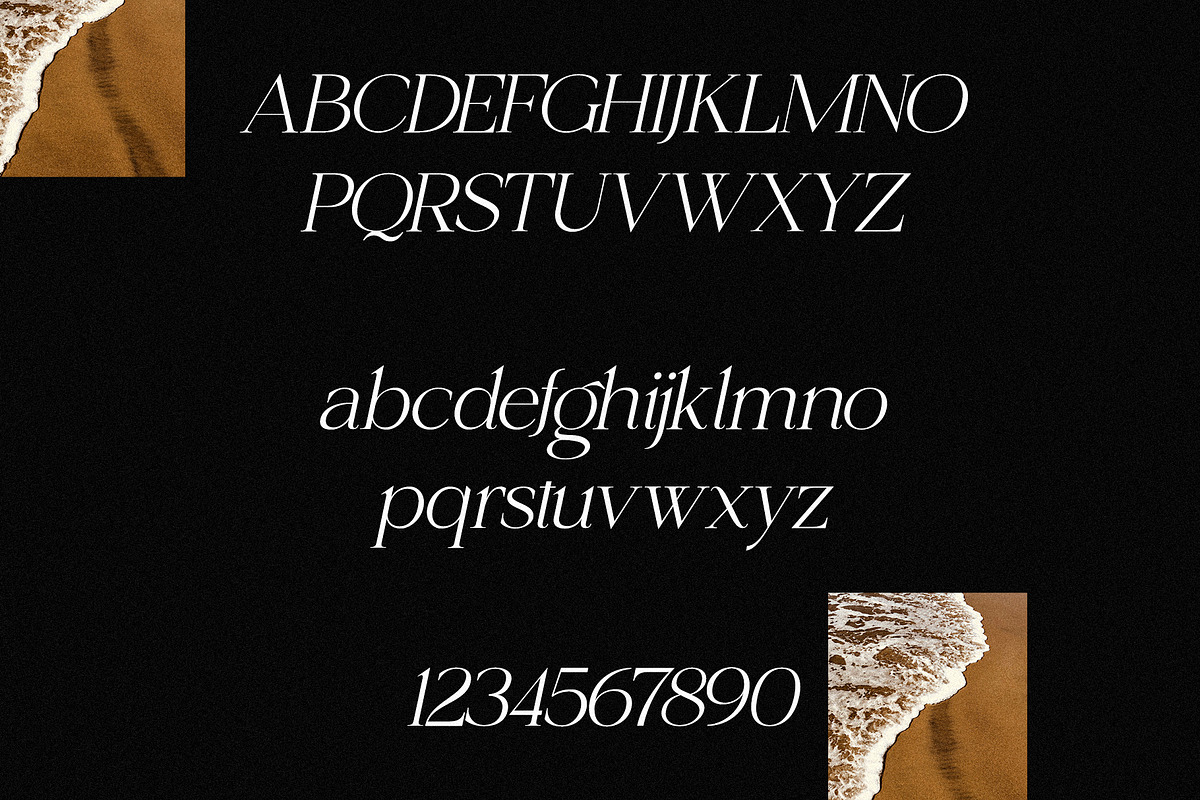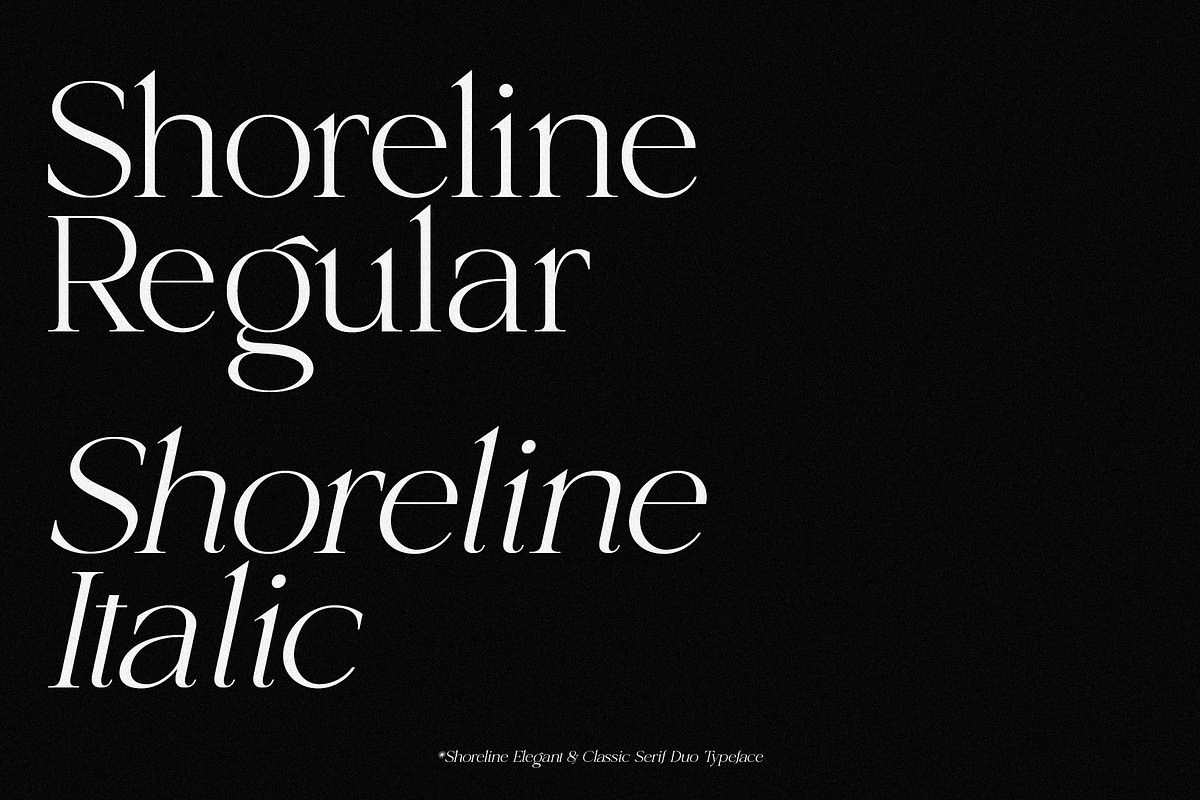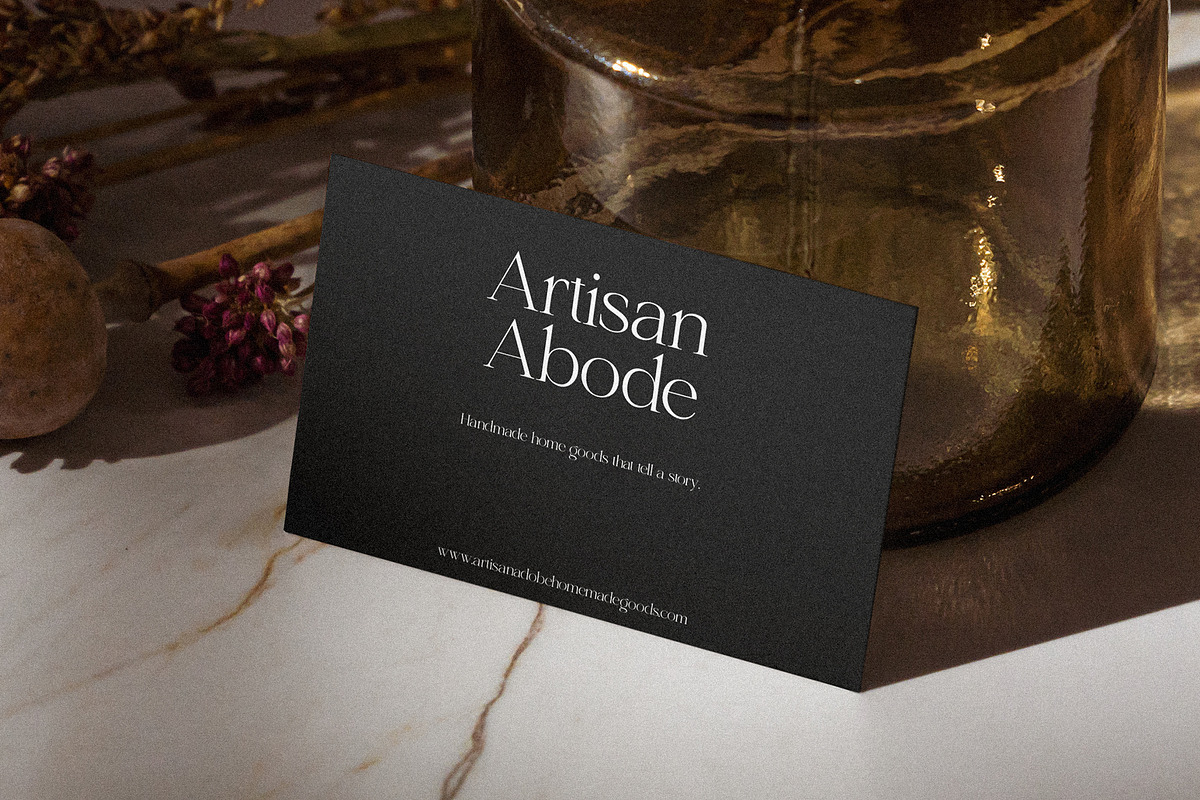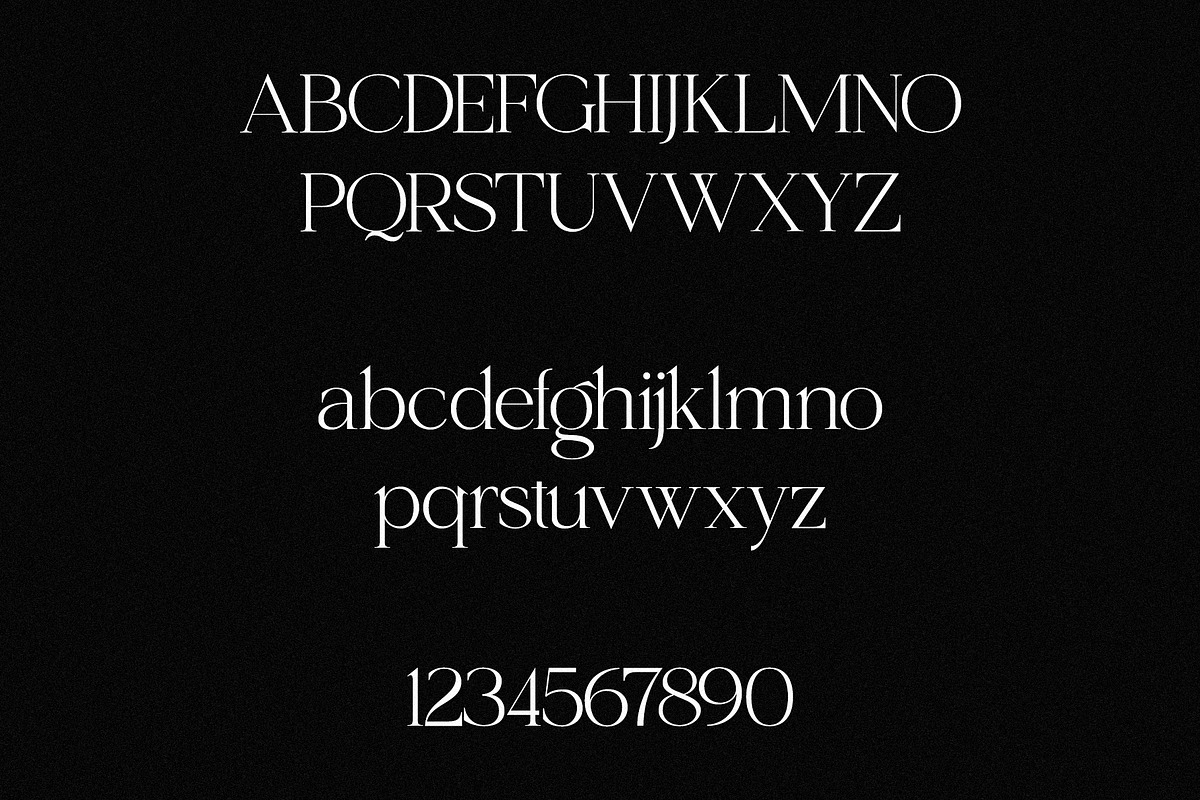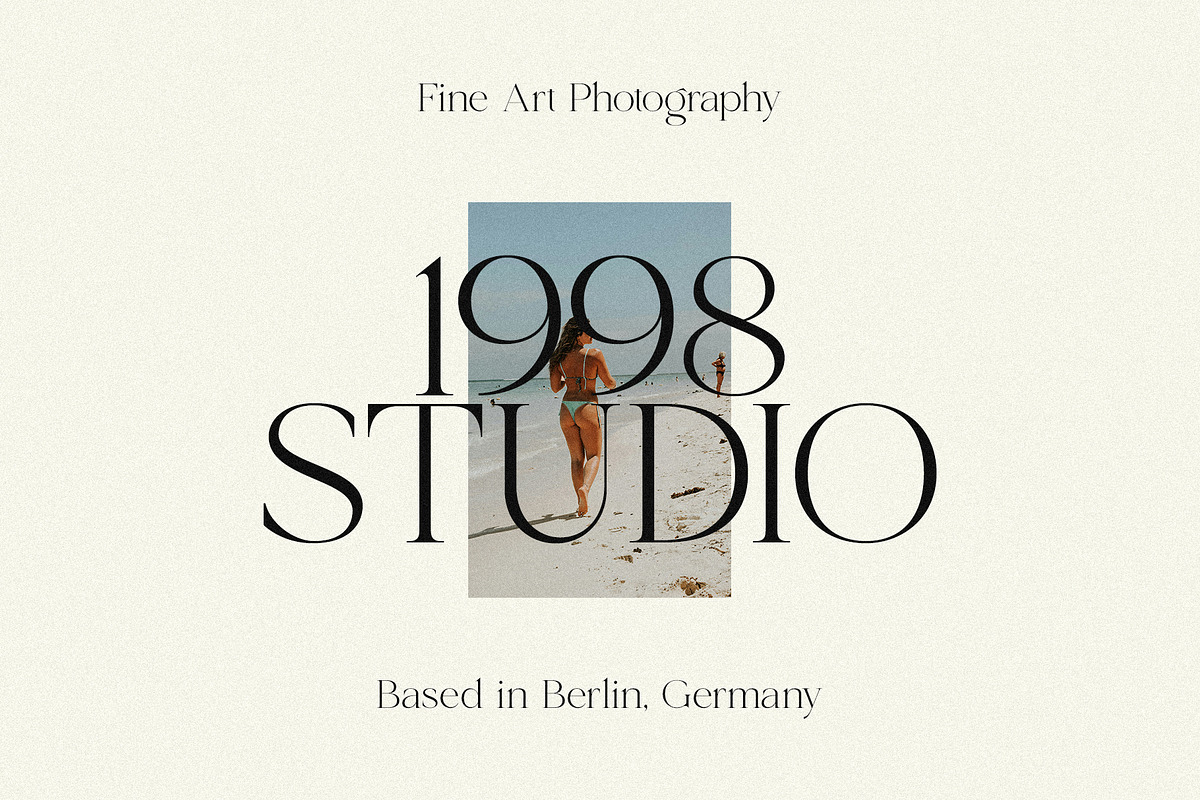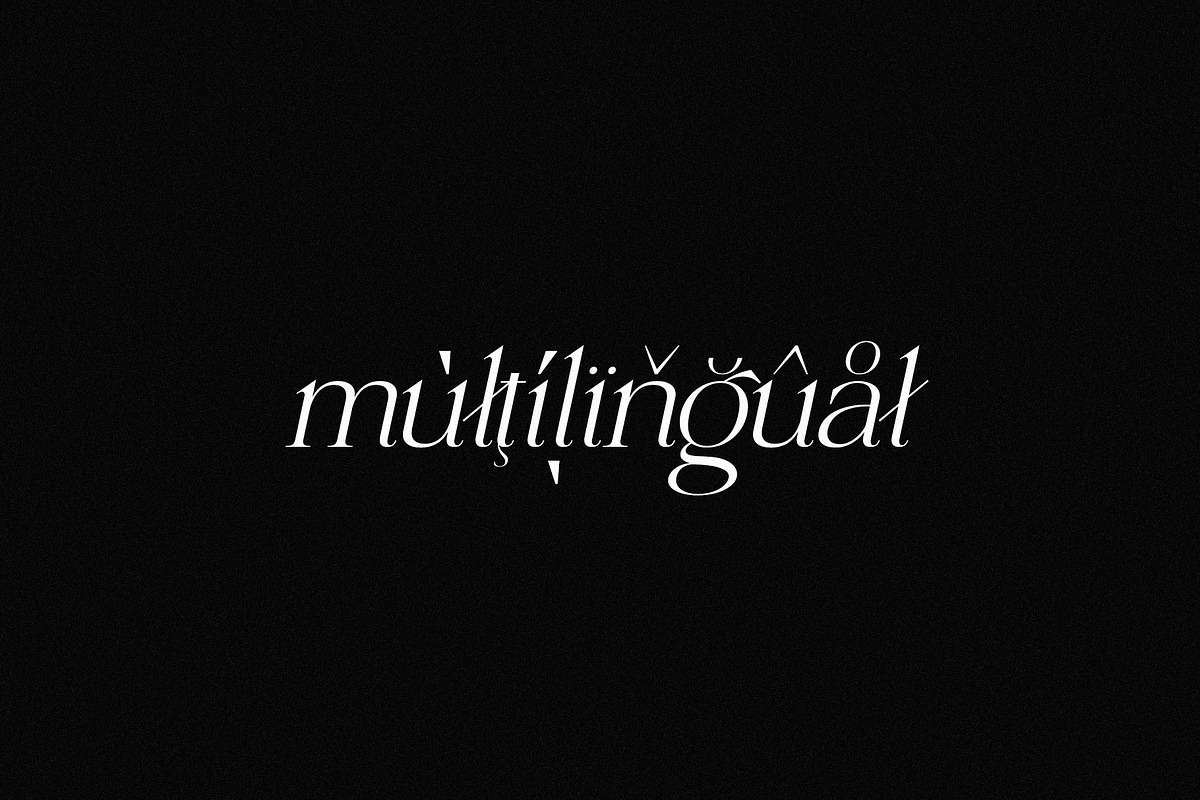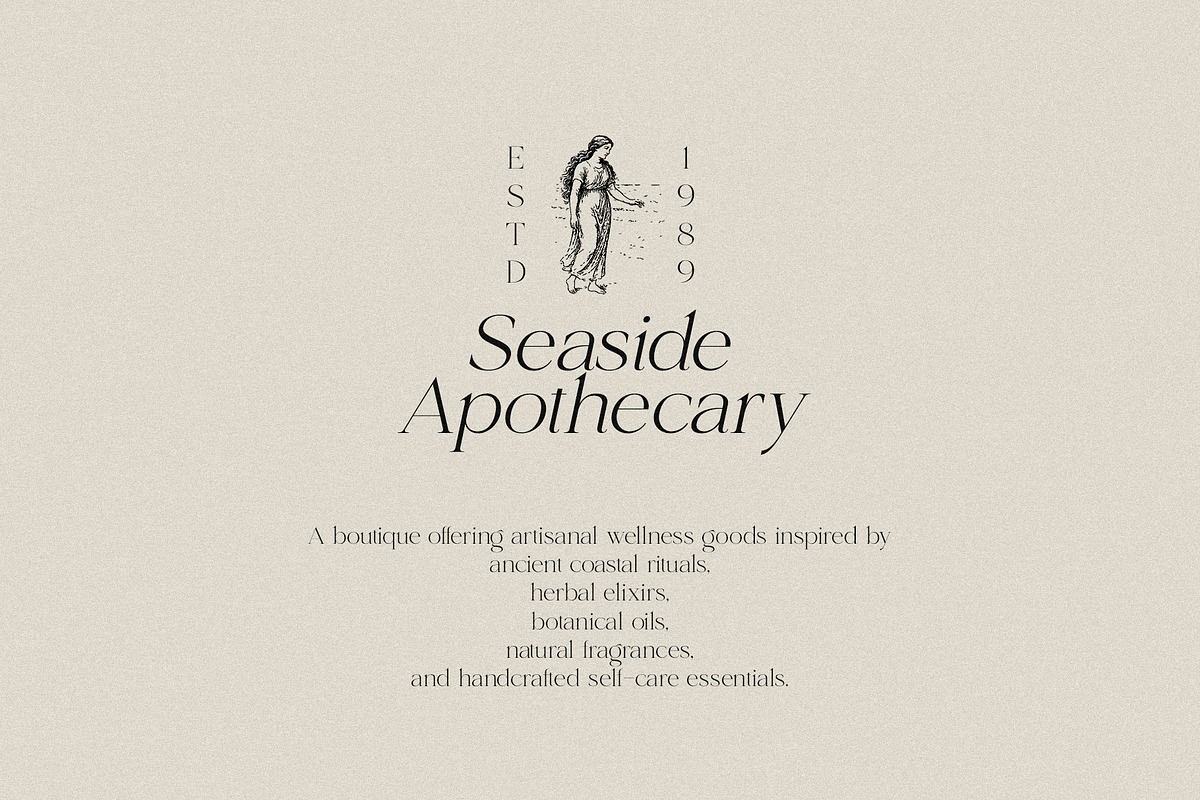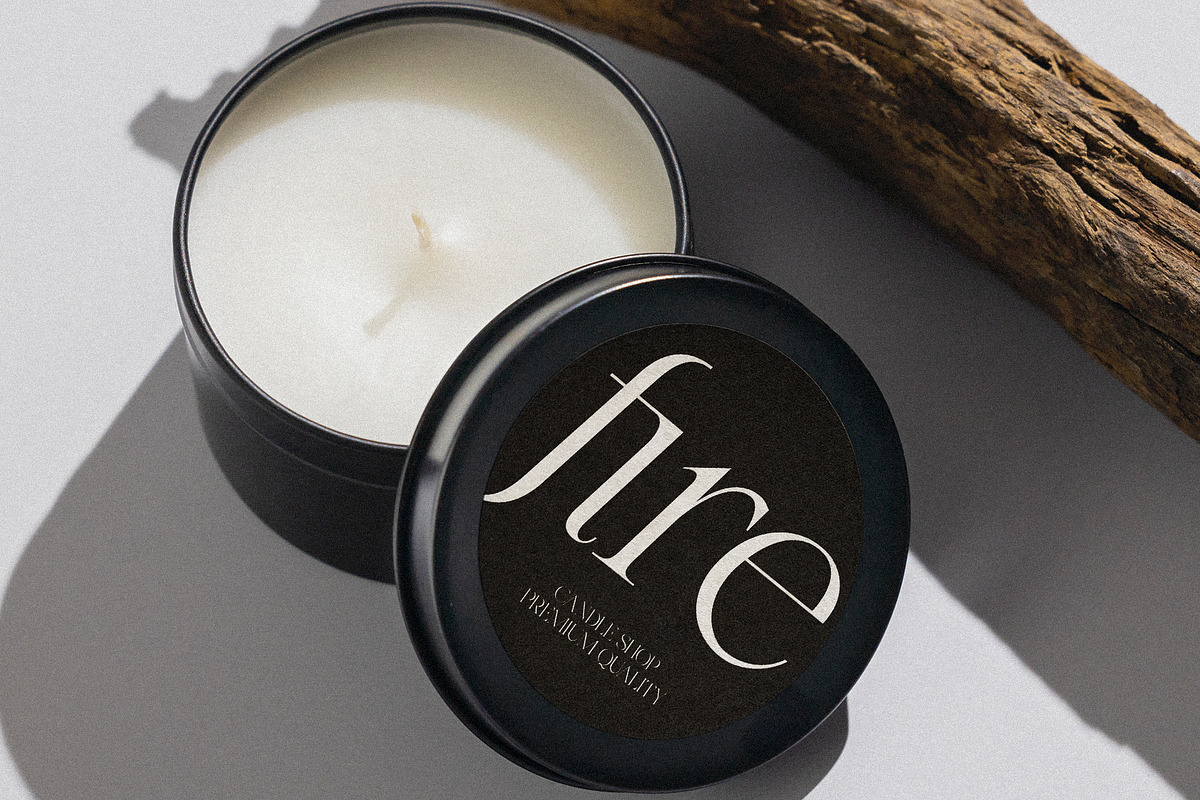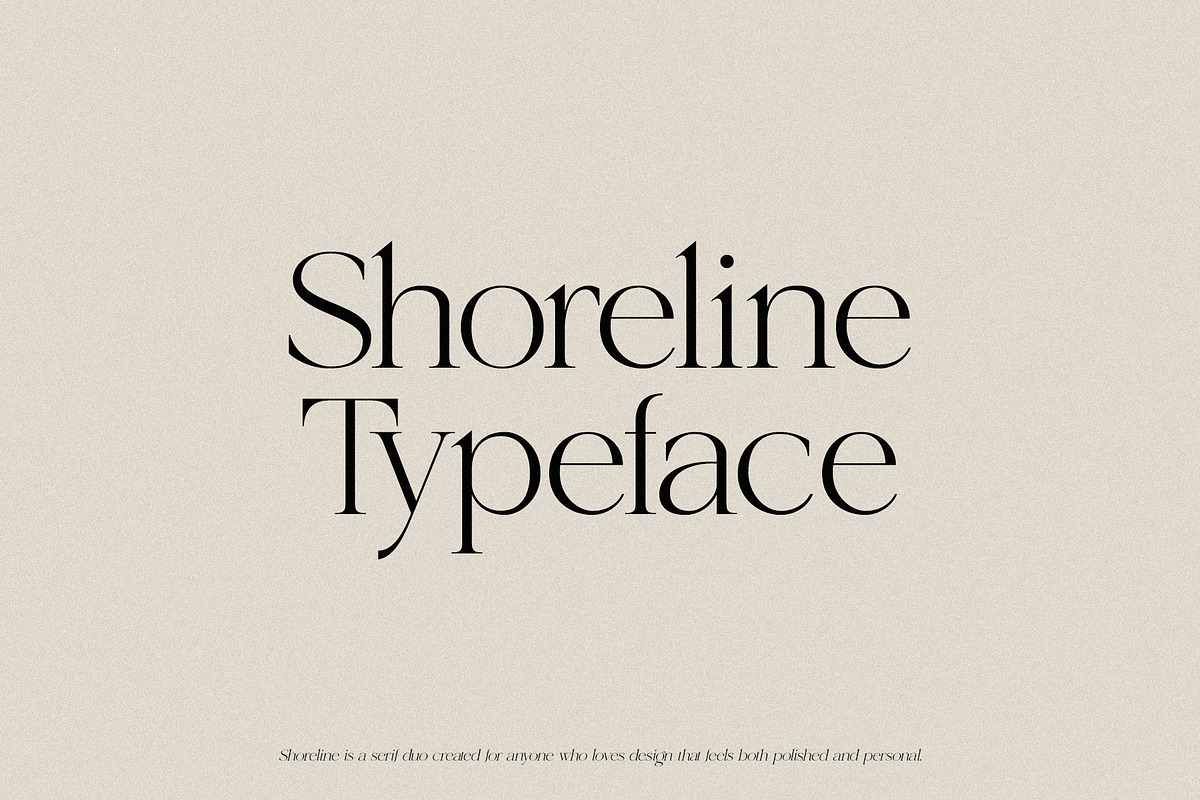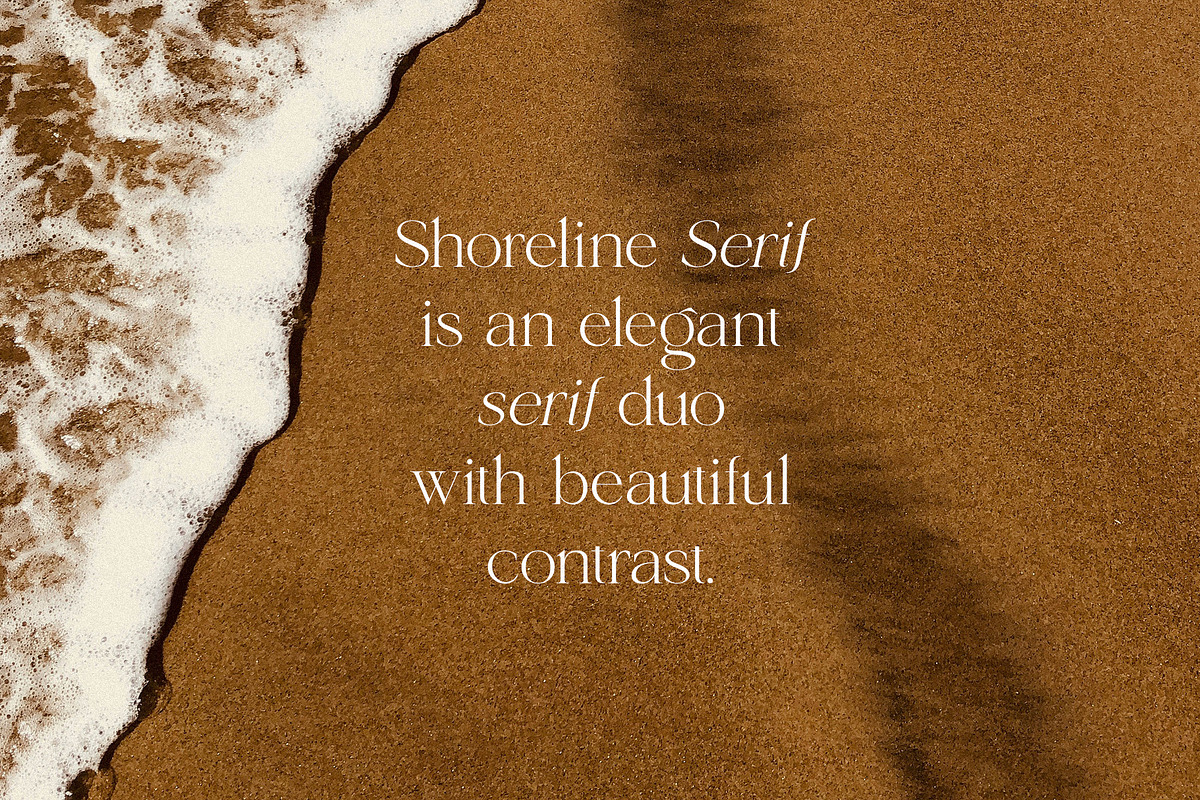
Shoreline - Elegant & Classic Duo
Shoreline - Serif Duo Typeface by Misha Sova
Shoreline is a serif duo created for anyone who loves design that feels both polished and personal. It brings together two complementary serif styles-one soft and classic, the other bold and expressive-so your work can move effortlessly between gentle details and strong statements.
Its curves feel calm and inviting, like a quiet morning by the water, while its clean structure keeps everything looking modern and intentional. From wedding suites and heartfelt letters to branding, packaging, and social posts, Shoreline adds a touch of quiet elegance without trying too hard.
If you’re looking for a font that feels warm, refined, and beautifully balanced, Shoreline was made for you.
Shoreline features:
- Letters
- Basic Ligatures
- More than 300 glyphs